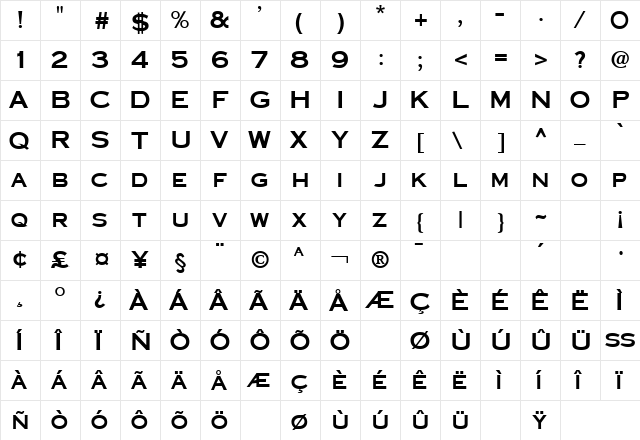
Beechnut Regular
Design Context for Beechnut Typeface
Beechnut offers clean, dependable letterforms without strong stylistic allegiance, making it a practical choice for designers who need flexibility.